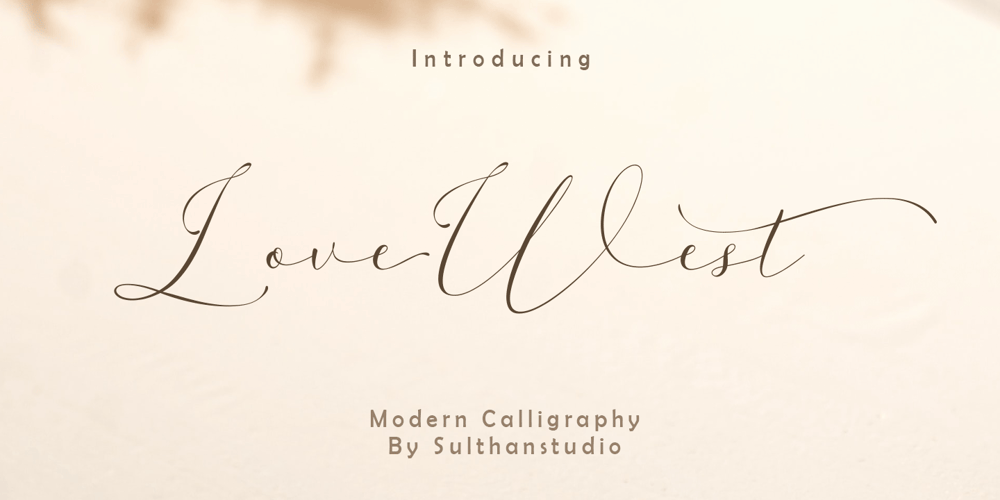
Love West Font Family was designed by Nasrullah and published by Sulthan Studio. Love West contains 1 styles and family package options. Love West is a sweet and delicate handwritten font. Dainty and joyful, this font will be ideal for writing wedding invitations, cards, or any other design that may need a romantic, personalized touch! This font is PUA encoded which means you can access all the glyphs and ligatures with ease!